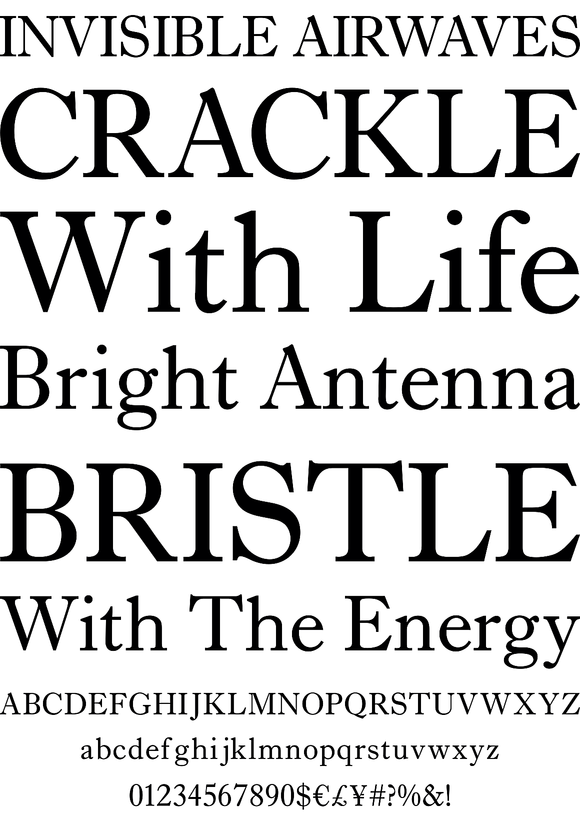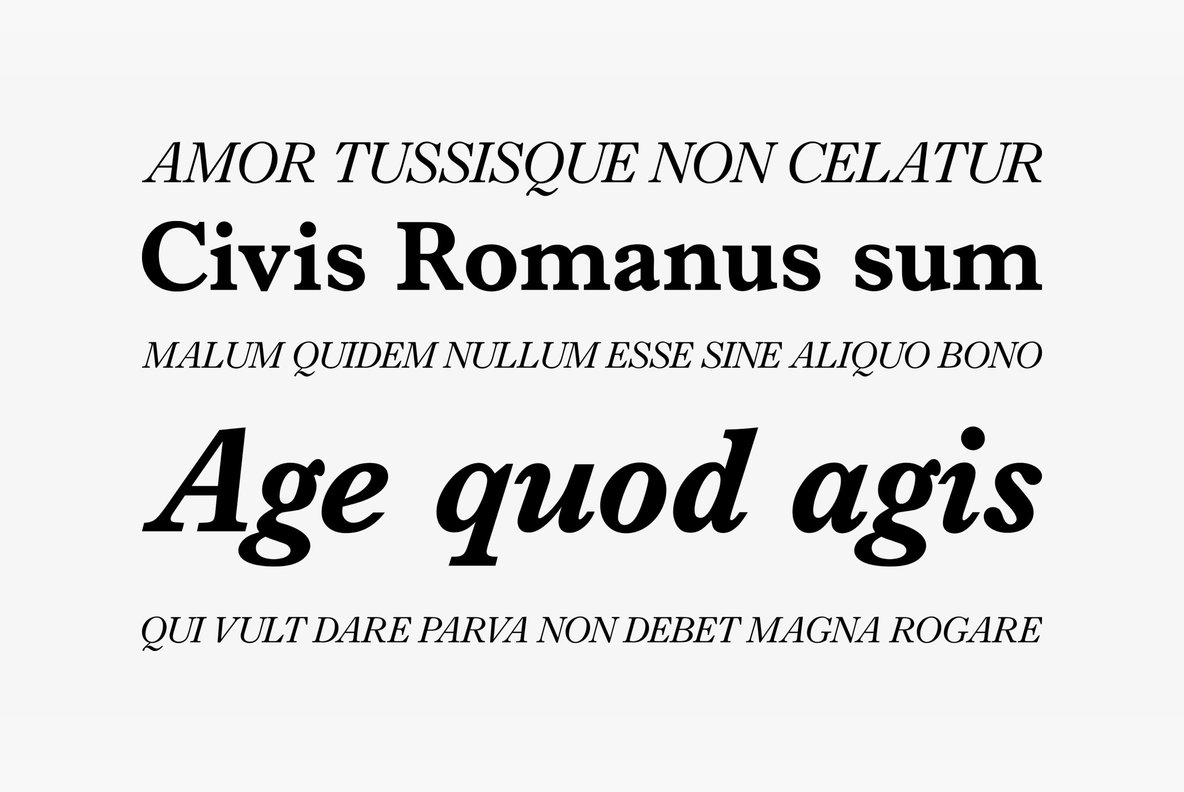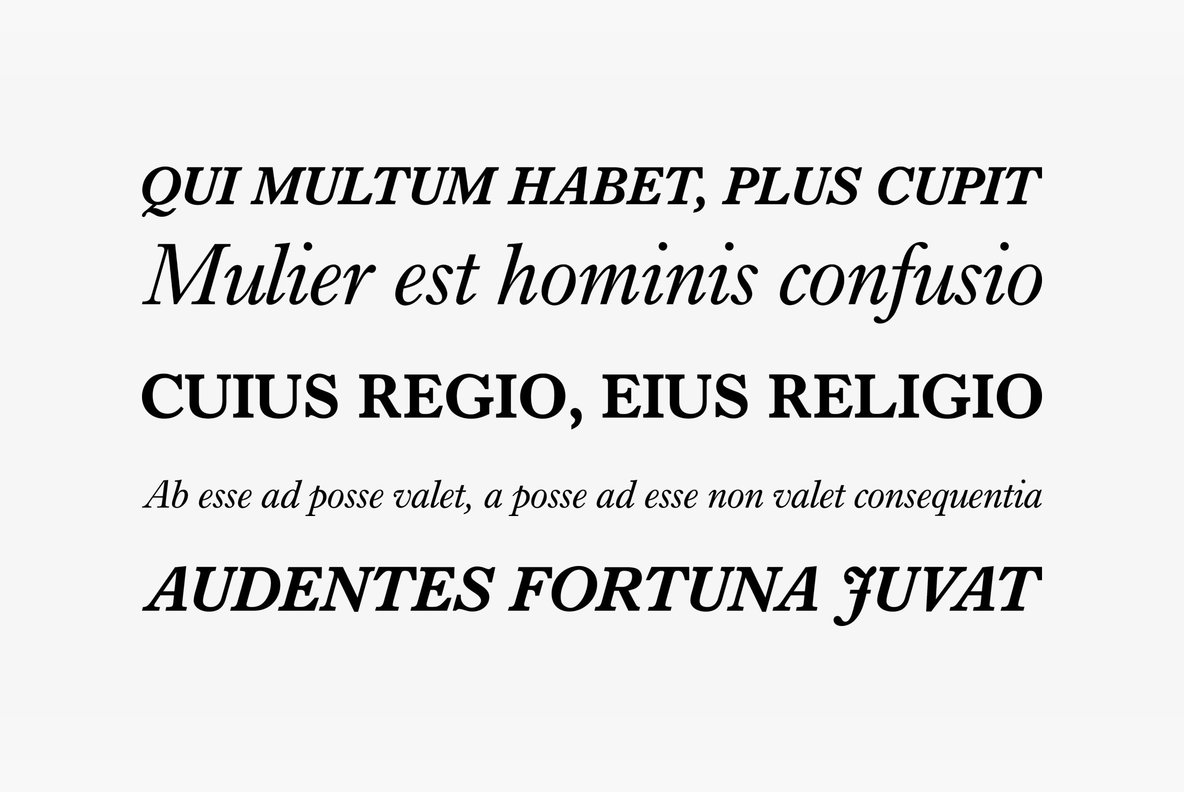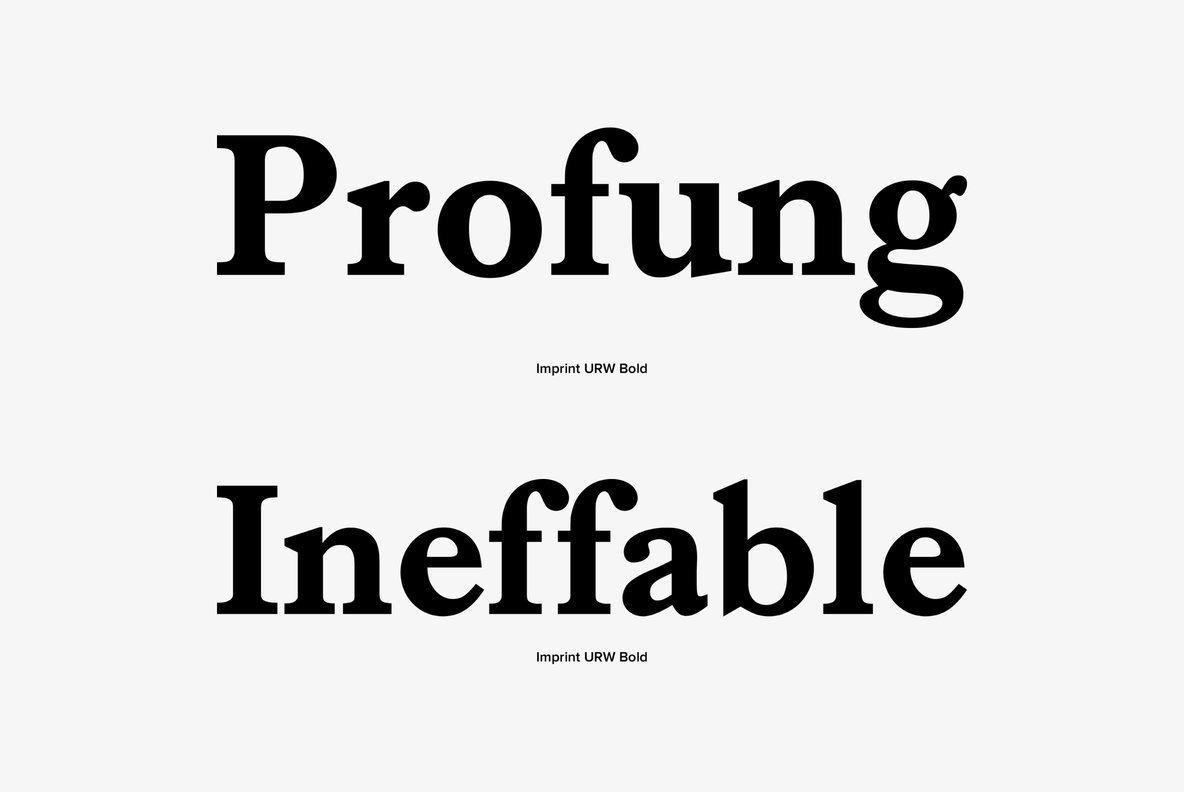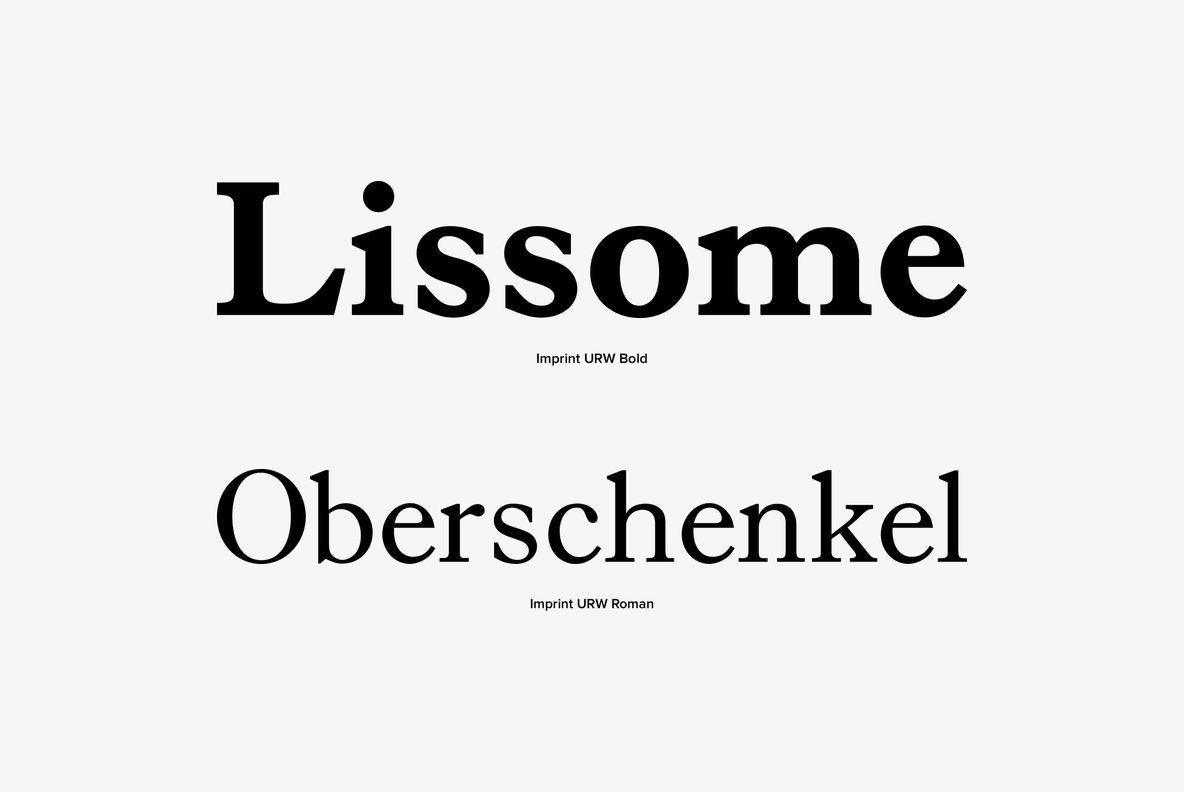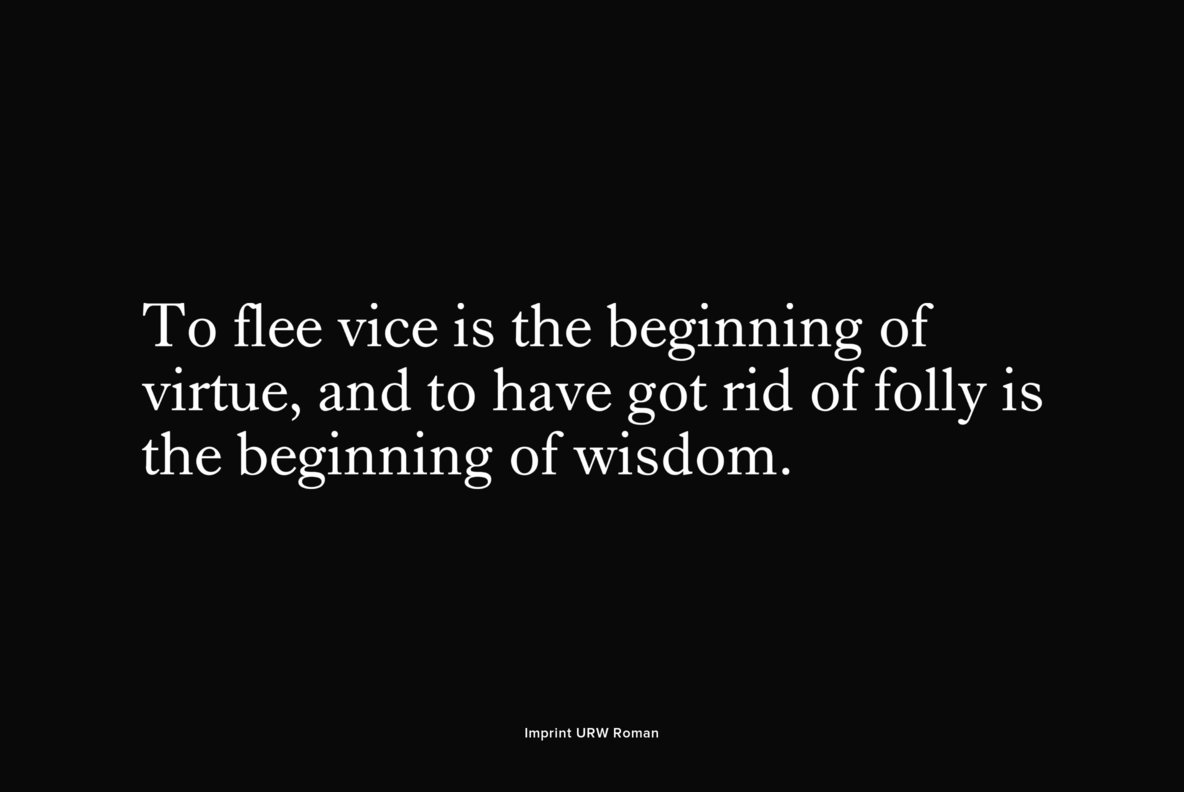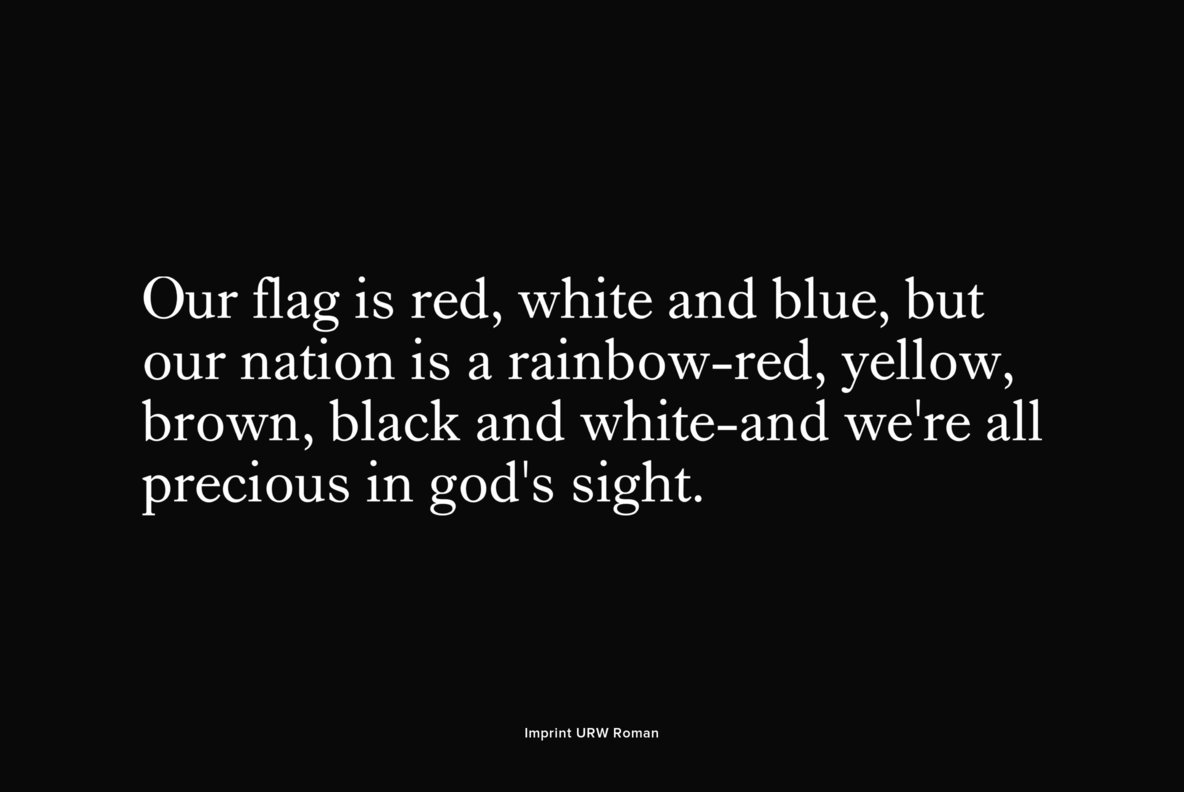
Imprint
Imprint is a classical and elegant serif that was designed by Geoffrey Lee in 1965. Contains 4 weights, and works great when combining the bold italic with the regular weight.